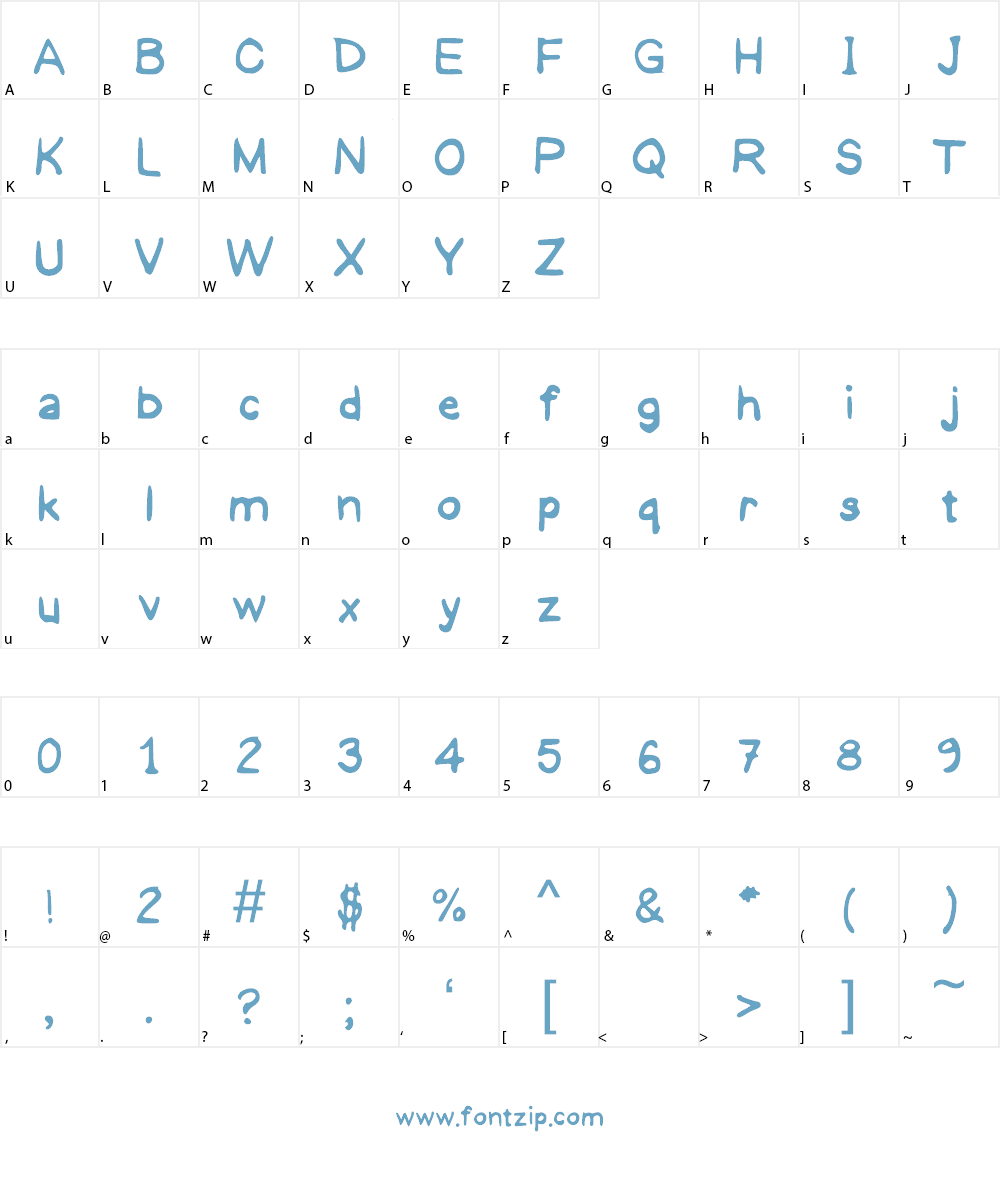
Personal Handwritten font using a black Industrial Super Permanent Ink Fine Point Sharpie Item. 13601
A Great marker that I use on a lot of my personal belongings.